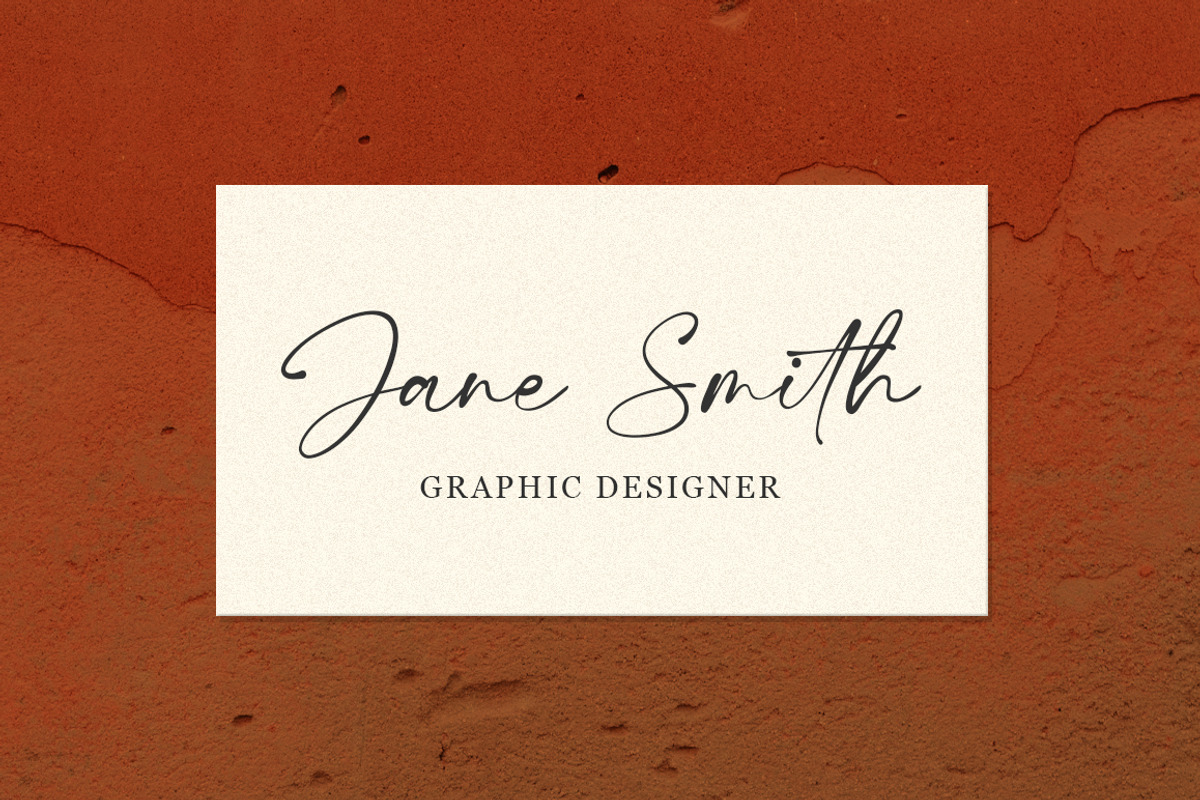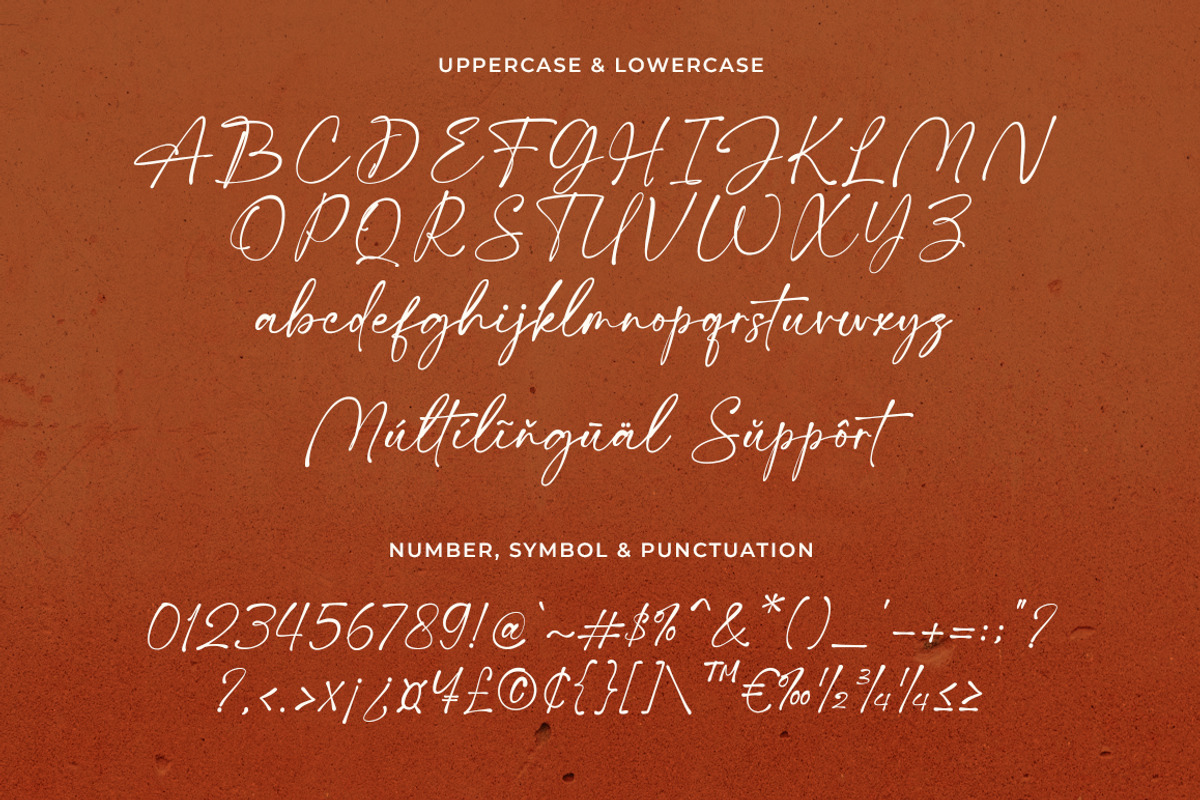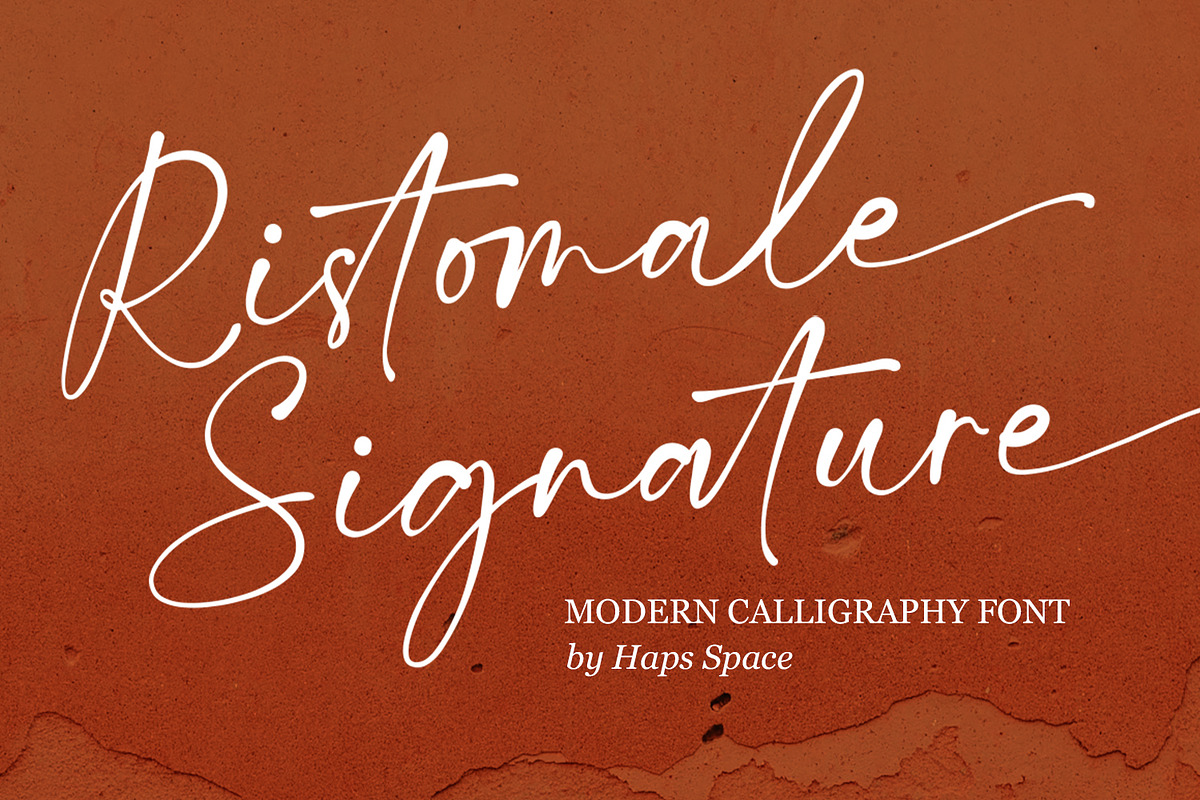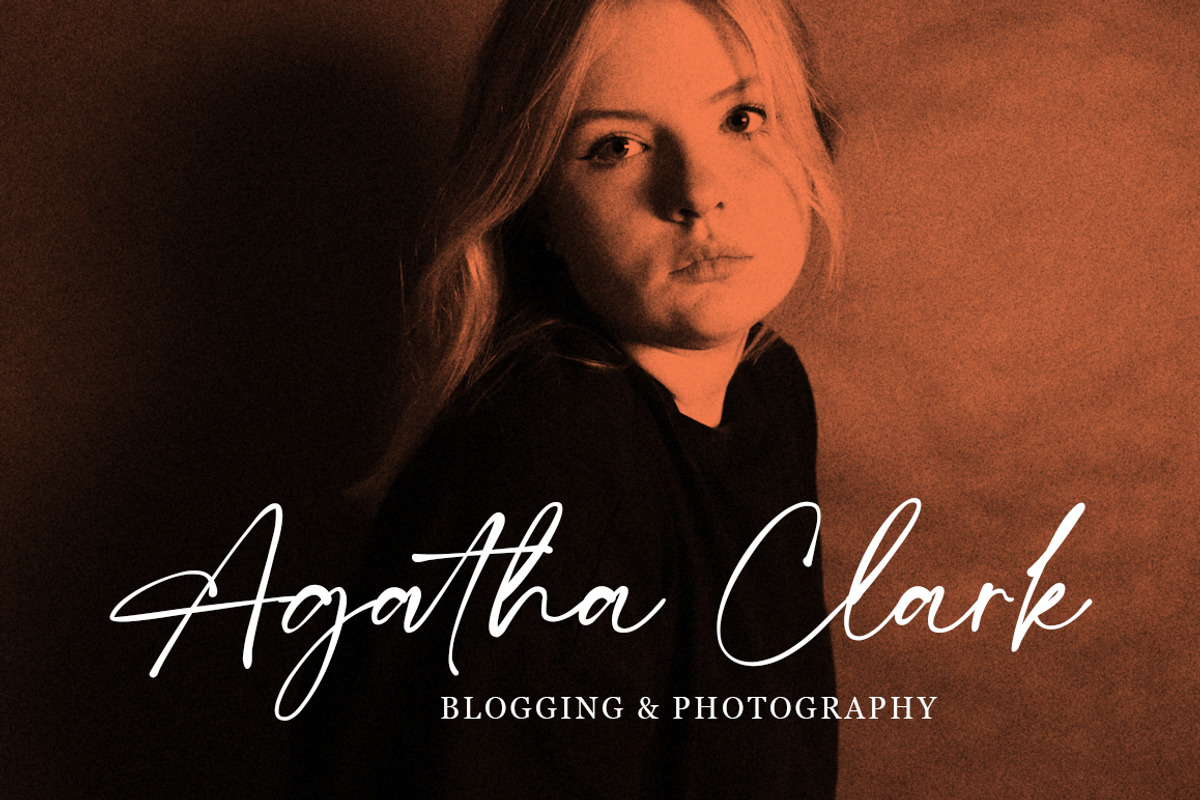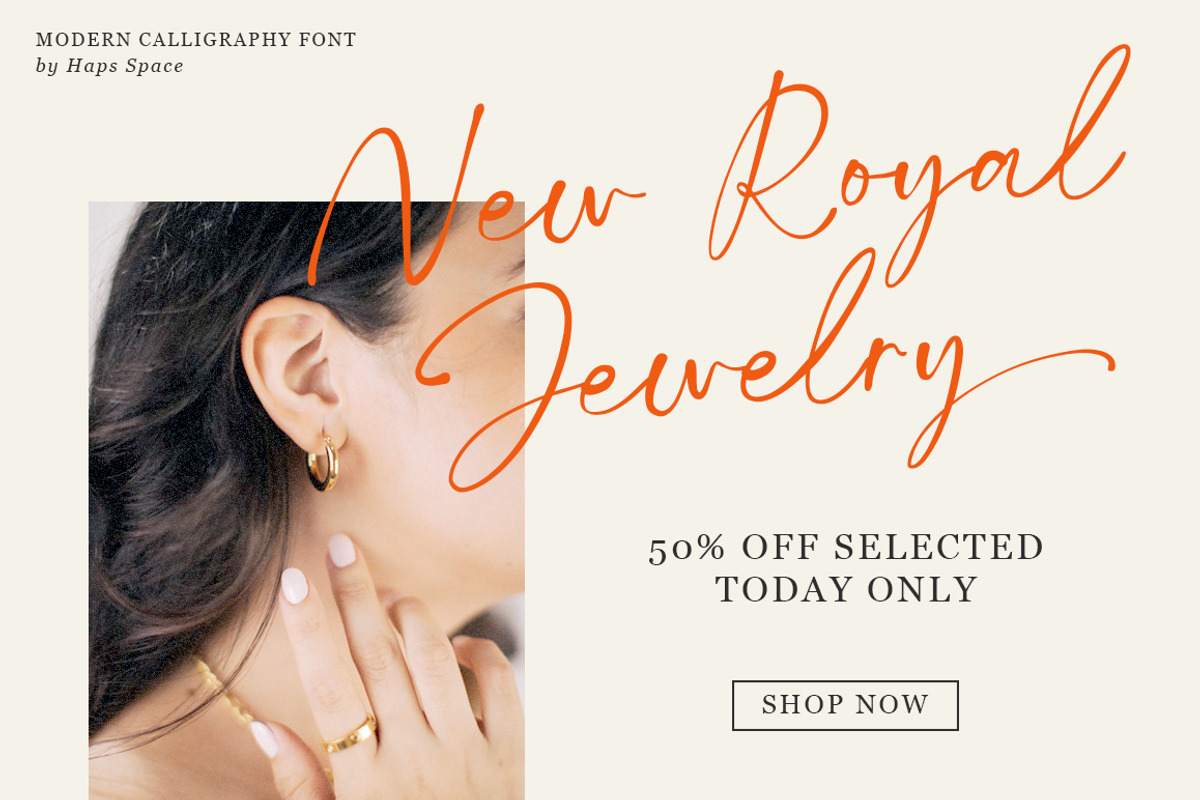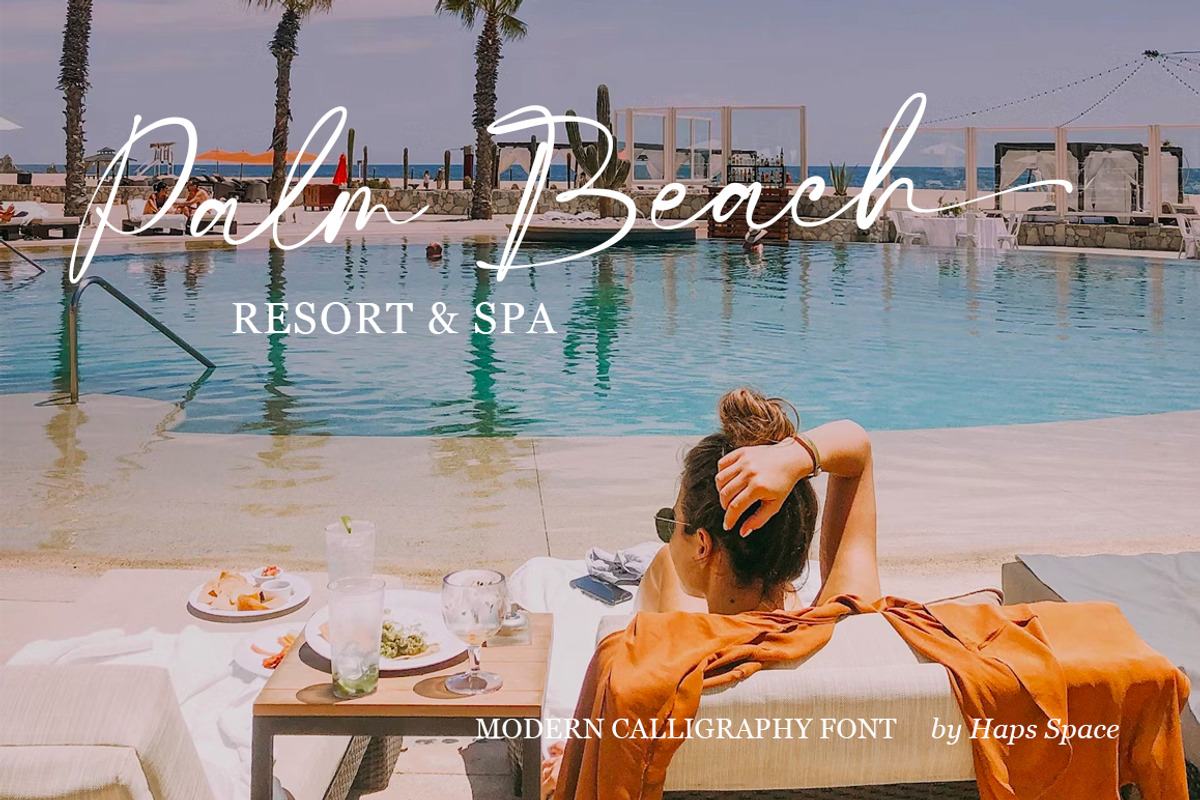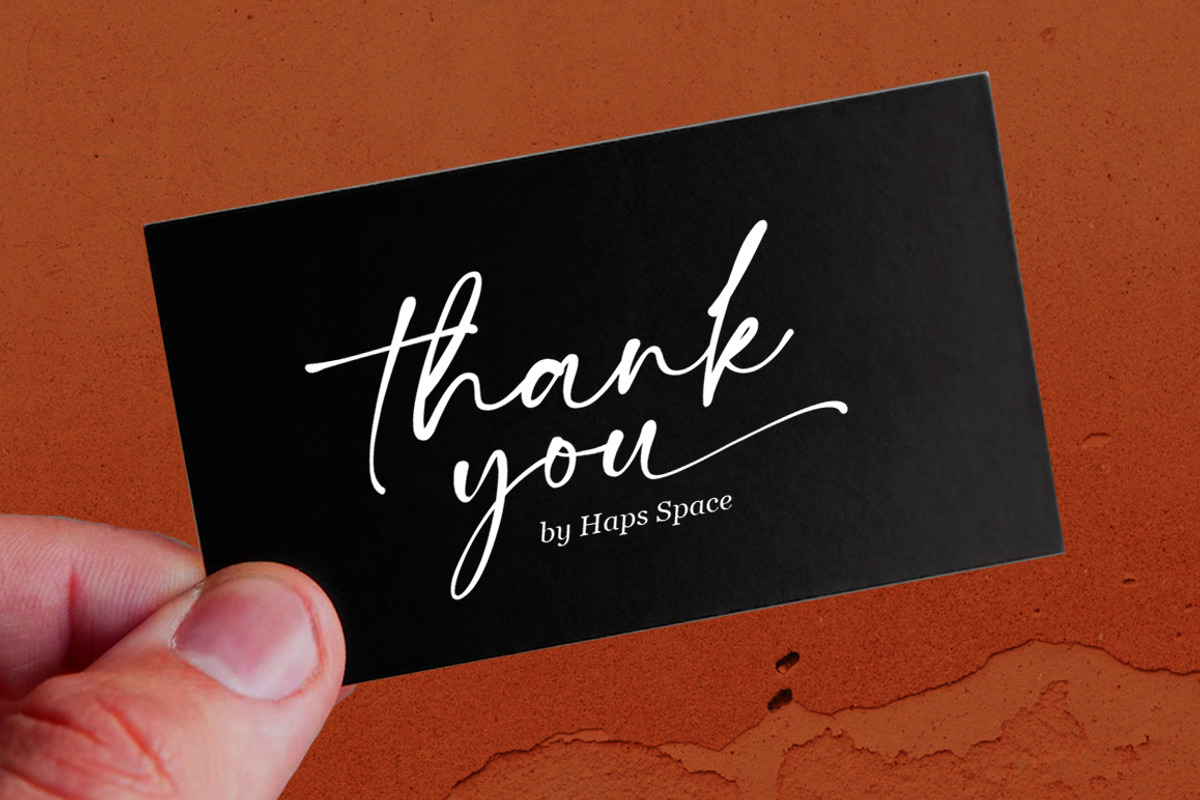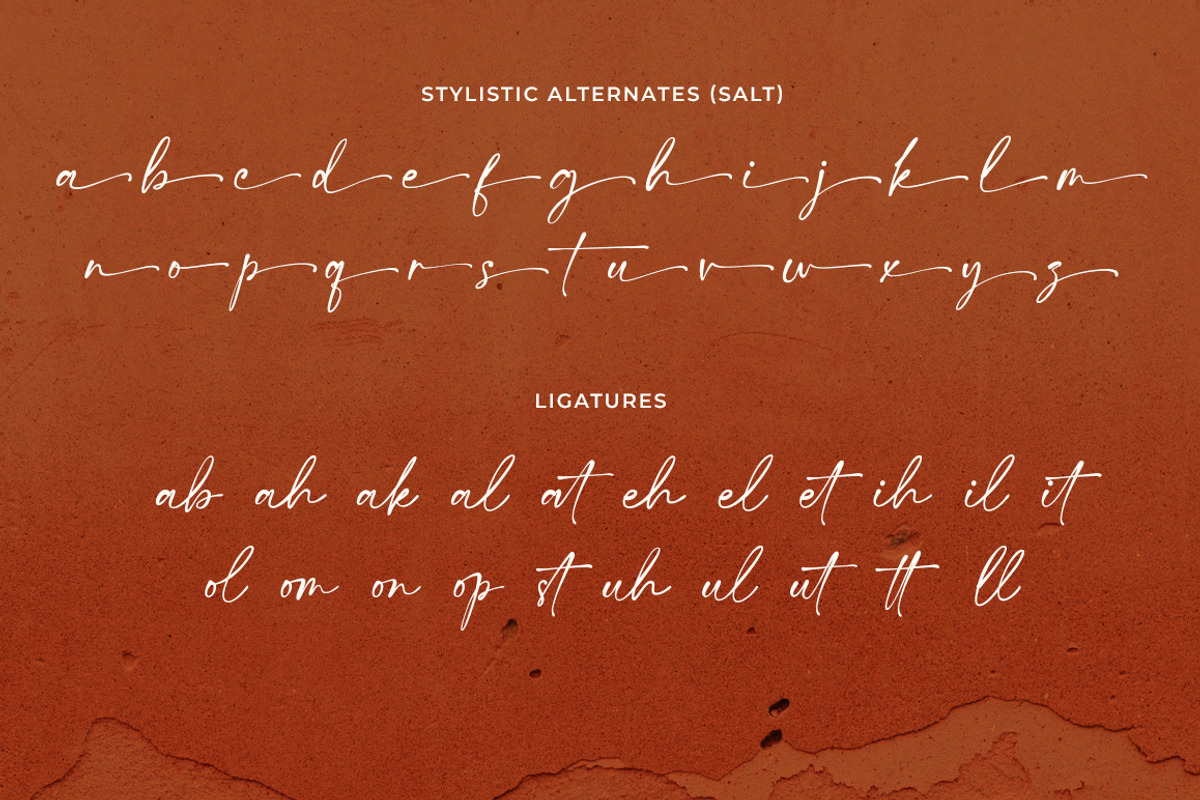
Ristomale Signature
Ristomale Signature is a modern calligraphy typeface crafted with a natural handwritten flow. With graceful curves and a luxurious touch, this font brings elegance and authenticity to any creative project. Whether you're designing branding materials or wedding stationery, Ristomale is your go-to for timeless sophistication.
✨ Features:
- Stylish signature look
- Modern calligraphy with fluid strokes
- Perfect spacing and smooth curves
- Ideal for branding, logos, and invitations
🖋️ Best Used For:
- Personal signatures & logo designs
- Fashion and lifestyle branding
- Wedding invitations
- Elegant packaging
- Social media content